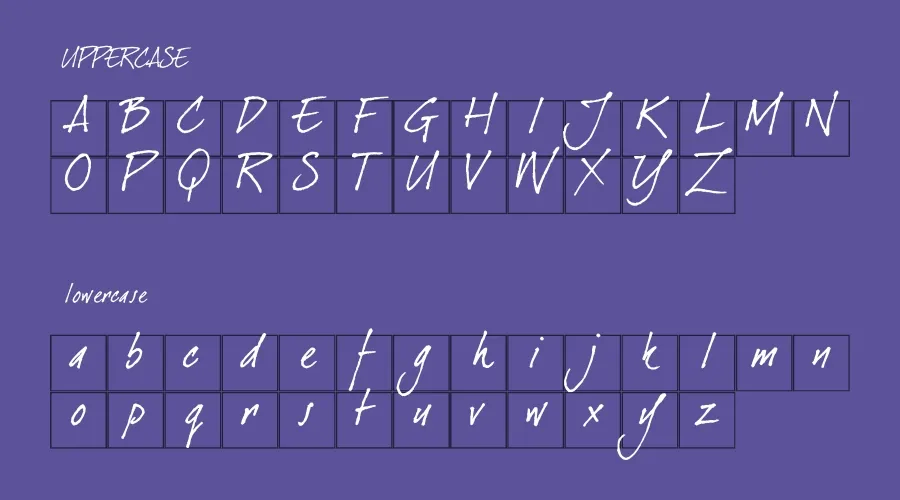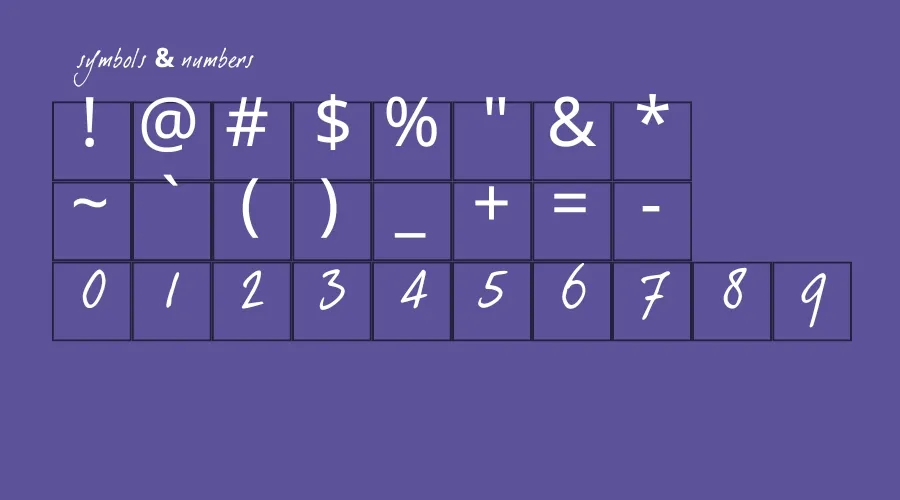
About Dear Joe Font
JOEBOB graphics designed Dear Joe Font is a beautiful script text style Gravity Point typeface could be a show text style. The letters are all exceptionally sharp and have a clean, cutting edge see.
The textual style incorporates both upper and lowercase letters, as well as numbers and symbols. This typeface contains unique glyphs that provide it with a unique see.
Each character is hand-crafted with extraordinary consideration of detail. This typeface may be an awesome choice for features, logos, and other brief text. It also culminated in including a bit of fashion to longer passages of content.
You’ll be able to utilize typeface for planning in-vogue Features, Logos, Brief content, Passages of content, or Anyplace you need to add a touch of identity.
It is additionally valuable for advanced and in-vogue extended plan requirements. It is extraordinary for different printing plans like T-shirts, Commerce cards, Blurbs, etc.
Name | Dear Joe Font |
Designer | JOEBOB |
Style | Script |
Does Dear Joe Textual style have great readability?
The typeface has amazing clarity since of its interesting and a la mode plan. The characters are well-spaced and simple to read.
Who is the creator of the Dear Joe Font?
JOEBOB graphics is the maker of this rich typeface the letters are all exceptionally sharp and have a clean, cutting edge see.
What kind of text style is the Dear Joe?
This wonderful typeface is a member of the script category typeface. This typeface contains unique glyphs that provide it with a unique see. Each character is hand-crafted with extraordinary consideration of detail.